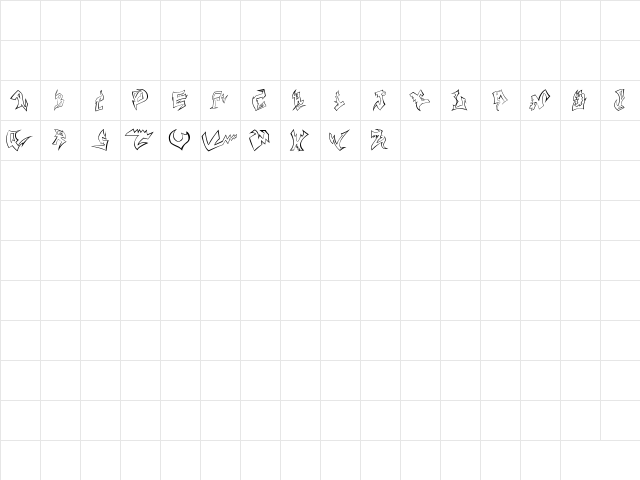
Unique Grafitti Regular
Design Context for Unique Grafitti Typeface
Unique Grafitti is a composed and adaptable typeface that performs quietly and consistently across a wide range of design contexts.